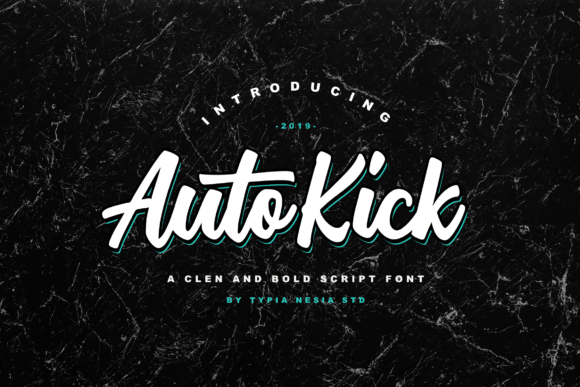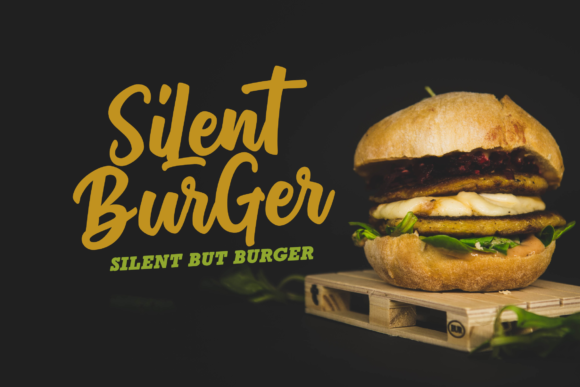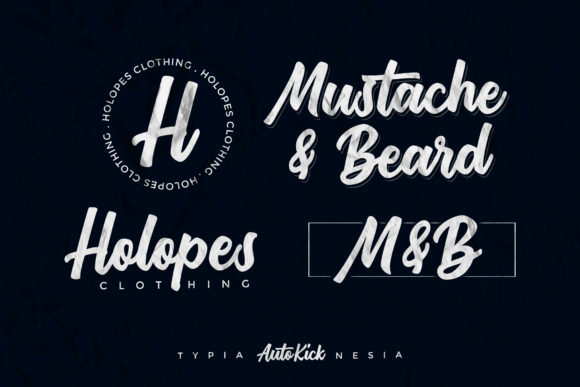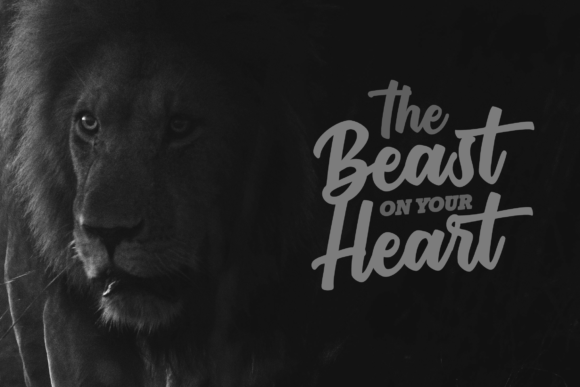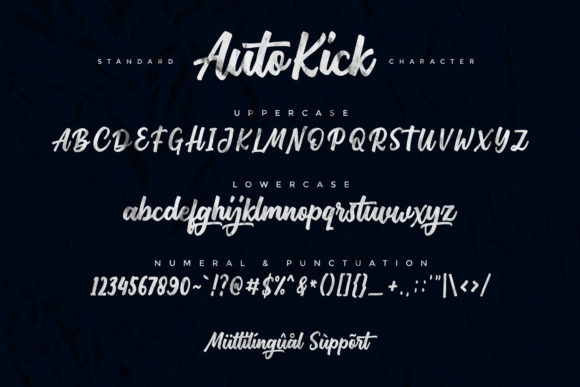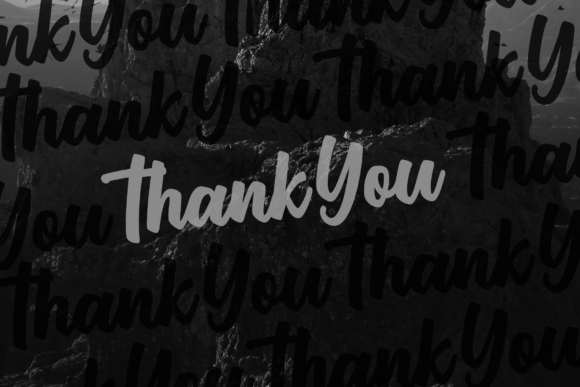
HomeScript FontsAuto Kick Font Script Fonts Auto Kick Font FacebookXPinterestWhatsApp Auto Kick Font Poster 2 Auto Kick Font Poster 3 Auto Kick Font Poster 4 Auto Kick Font Poster 5 Auto Kick Font Poster 6 About Auto Kick Font Auto Kick is a stunning script font with a unique feel. Get inspired by its vintage charm! DOWNLOAD NOW People also explored Snowshoes Font Fairybells Font Southland Rock Garden Font Milesa Font Winter Memories Font Seaside Font Nightmare Gothic Font Ratenberg Font 301 0 TagsAuto Kick Font Previous articleNew Narrative FontNext articleWonderful Font LEAVE A REPLY Cancel reply Comment: Please enter your comment! Name:* Please enter your name here Email:* You have entered an incorrect email address! Please enter your email address here Website: Save my name, email, and website in this browser for the next time I comment. Personal Use Free JVNE Smoothdron Personal Use Free Read more about this font Lovetle Personal Use Free Read more about this font Miracles Personal Use Free Read more about this font Strings Personal Use Free Read more about this font BLOG Free vs Paid Fonts: Why Investing in Premium Fonts Is Worth It Free vs Paid Fonts: Why Premium Fonts Are Worth It in 2025 The debate of free vs paid fonts continues in the design world. While... To increase your work productivity, choose the most readable fonts. Fonts That Capture the Spirit of New York City Modern Sans-Serif Fonts That Brands Love in 2025